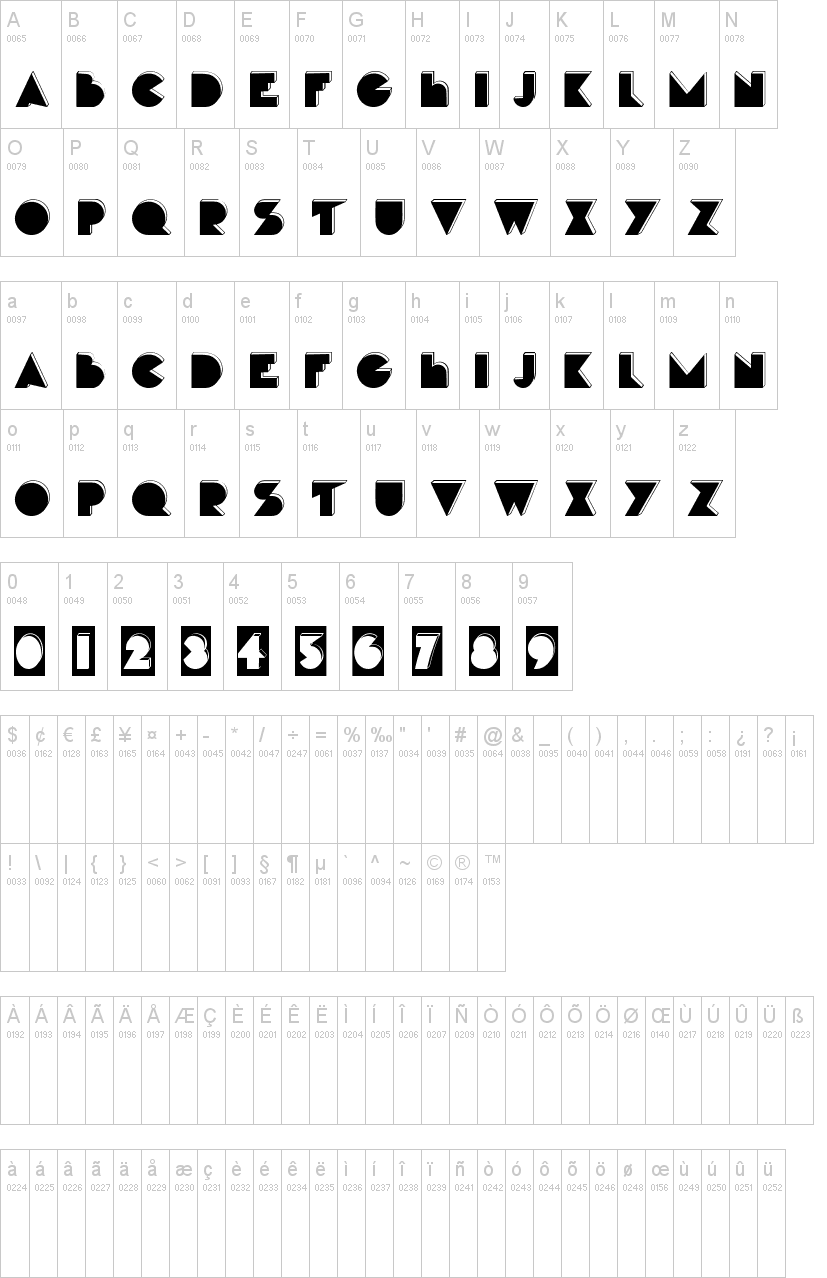
Note of the authorBased on a typo from №25 page of The Hunt Brothers book - "Lettering of Today - A Collection of Modern Alphabets & Numerals" from 1930.